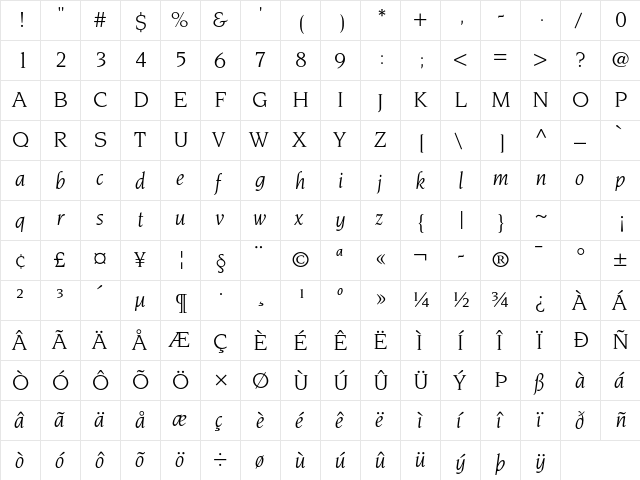
ITC Novarese Std Book Italic Font Preview
ITC Novarese Std Book Italic
| Designer | Aldo Novarese |
Design Context for ITC Novarese Std Typeface
ITC Novarese Std is a composed and adaptable typeface that performs quietly and consistently across a wide range of design contexts. The dynamic lean of this cut emphasises speed and emphasis in any layout.
Pro Tip: Use ITC Novarese Std for emphasis, pull quotes, and subheadings where its slanted energy can add rhythm to the layout.